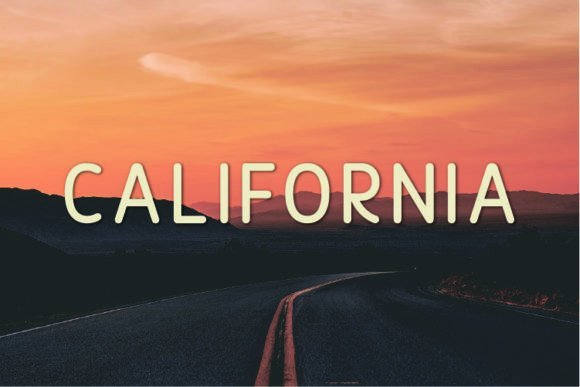
Discover the Golden State of Typography
As a designer, you’ve likely spent countless hours poring over fonts, searching for the perfect one to elevate your next project. Perhaps you’ve scrolled through endless options, only to land on a font that feels ‘just right.’ That moment, where all the pieces come together, is exactly what inspired the creation of California Font – a modern, classy sans serif typeface designed to make your creative vision shine.
California Font is more than just a typeface – it’s a versatile tool for designers, ideal for logos, weddings, invitations, quotes, advertisements, and print media. With its extensive character set and range of punctuation and symbols, this font is the perfect companion for any creative project. Whether you’re a seasoned pro or just starting out, California Font is sure to become your go-to choice for any design need that requires a touch of California cool.
California Font Key Features
- Font Family: California is a sans-serif font family, designed by Fontfabric.
- Unique Characteristics: California features a modern, clean design with a friendly and approachable feel, making it suitable for various applications, including digital and print media.
- Font Weights: California includes various font weights, from Thin to Black, providing flexibility for designers to choose the right weight for their project.
California Font Review
As a designer, I’ve had the chance to work with various fonts, and California Font is one that caught my attention. It’s a beautiful, modern sans-serif font that’s perfect for creating a laid-back, West Coast vibe. ✨ The font’s clean lines and rounded edges make it an excellent choice for headings and titles, while its subtle flair at the terminals adds a touch of sophistication.
One of the standout features of California Font is its versatility. It’s suitable for a wide range of applications, from digital design to print materials. ✨ The font also comes in a range of weights, from light to bold, making it easy to adapt to different design contexts.
However, I do have some concerns about the font’s legibility. ✠️ In smaller sizes, the font can become difficult to read, especially for those with vision impairments. Additionally, the font’s rounded edges can make it appear somewhat childish or informal in certain contexts.
Overall, California Font is a solid choice for designers looking to create a relaxed, California-inspired aesthetic. While it may have some limitations, its unique charm and versatility make it a great addition to any design toolbox.
- Works well for headings and titles
- Suitable for digital and print design
- Comes in a range of weights
- Unique, laid-back aesthetic
- May be difficult to read in smaller sizes
- Rounded edges can appear childish or informal
- Limited versatility in formal or professional contexts
Tips for Getting the Most Out of California Font
Use California Font for titles, headings, and emphasis to create a visually appealing and modern design. Experiment with different font sizes and colors to achieve a cohesive look. Consider pairing California Font with other modern fonts for a unique and stylish design.
California Font is ideal for:
• Social media graphics and advertisements
• Branding and marketing materials
• Web design and development
• Print materials such as business cards and brochures
Alternatives to “California Font” for Designers
Avenir is a geometric sans-serif typeface designed by Adrian Frutiger in 1988. It’s a versatile font that can be used for both body text and titles. Avenir is suitable for modern and sleek designs, and it’s a good alternative to California Font when you need a font with a similar geometric feel but a more neutral tone.
Inter is a modern sans-serif typeface designed by Office for Creative Research in 2019. It’s a highly legible font that’s designed for digital use. Inter is a good alternative to California Font when you need a font with a similar clean and minimalist feel, but with a more contemporary look.